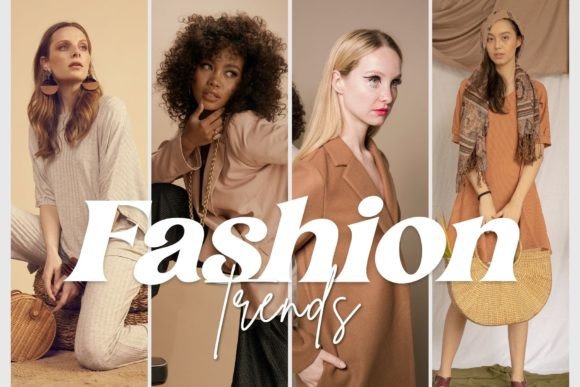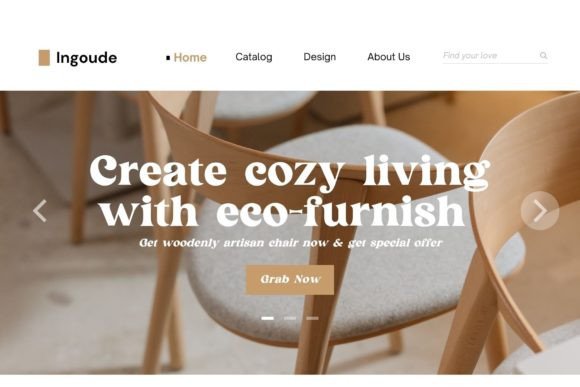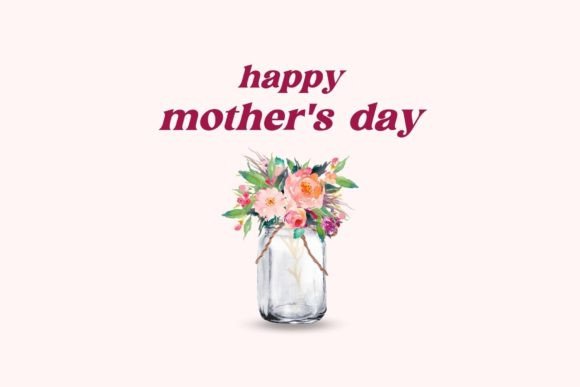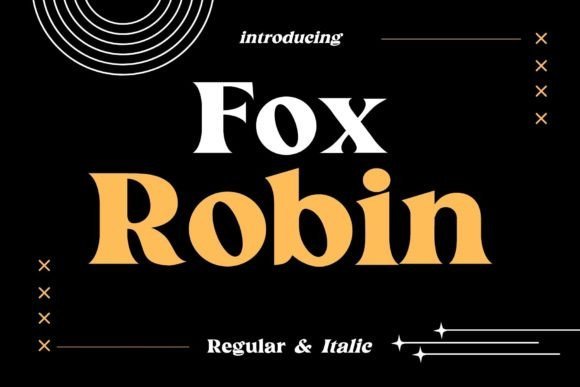
Introduction to Fox Robin Font
Fox Robin Font is beautiful and designed to be versatile.
Compatible with both modern and vintage design styles You can use it for various projects, including blog posts, logos, branding, advertisements, invitations, greeting cards, planners, photo albums, decorations, and much more.
Fox Robin Font offers exceptional quality and versatility, making it a valuable addition to your design toolkit. Whether you’re creating for personal projects or commercial use, Fox Robin Font delivers professional results.